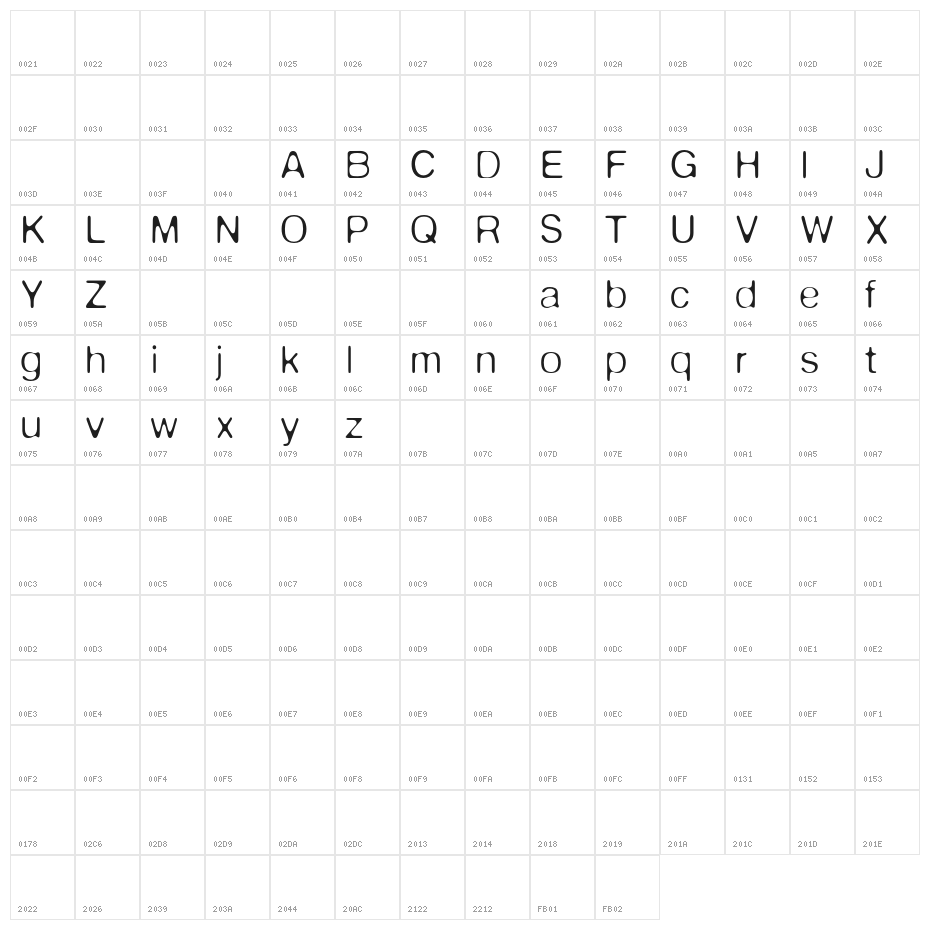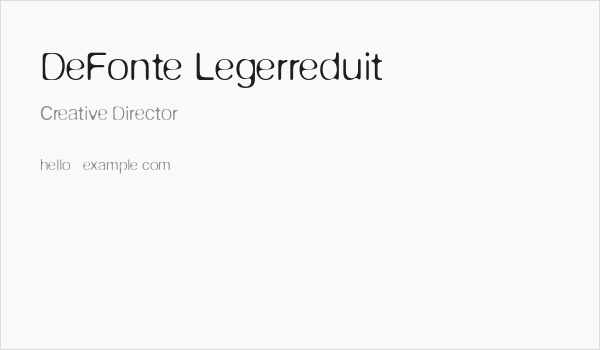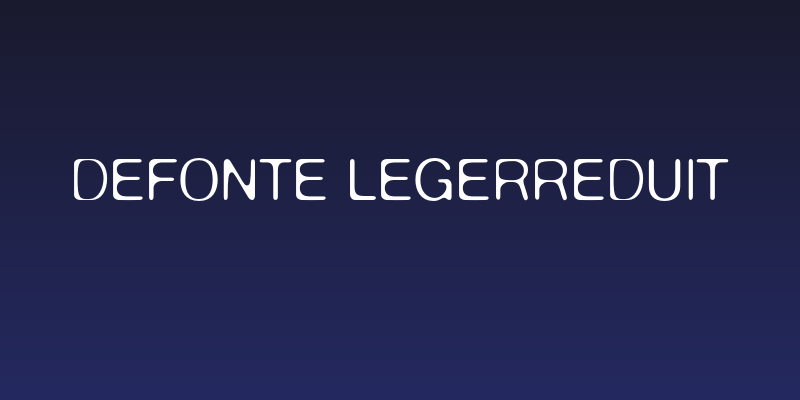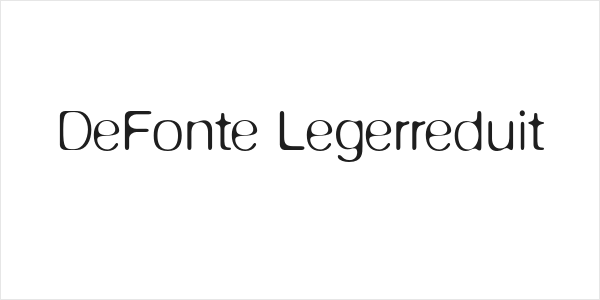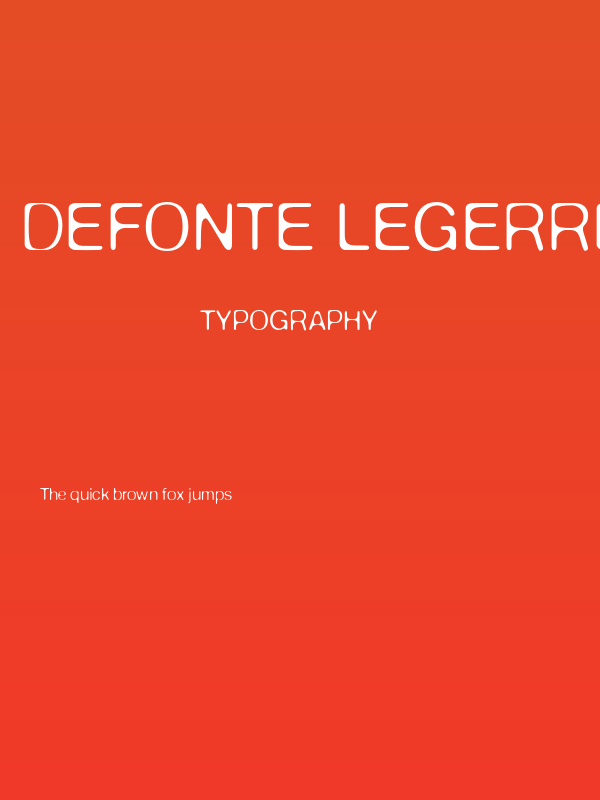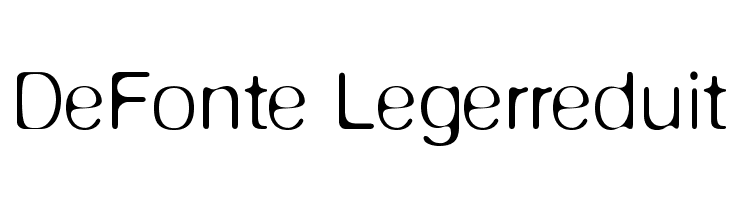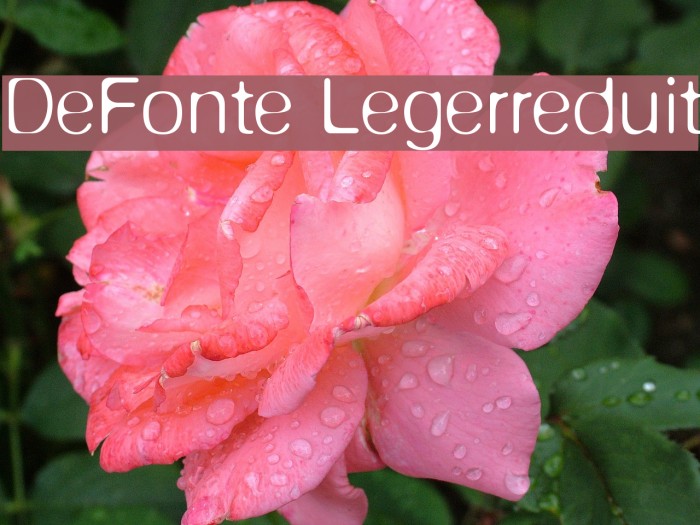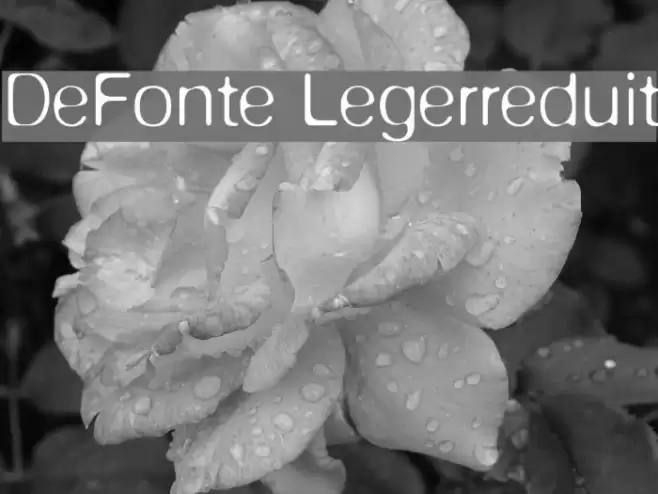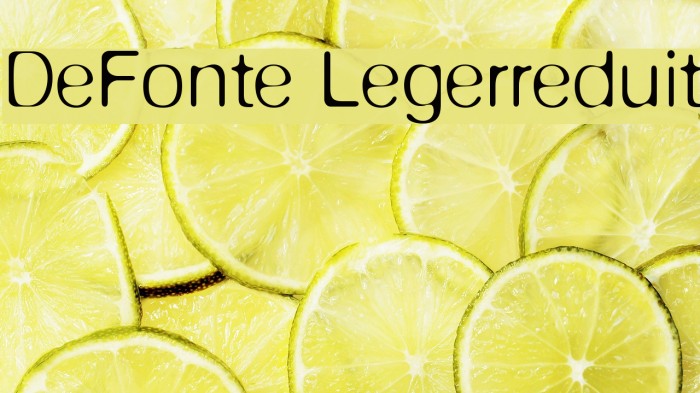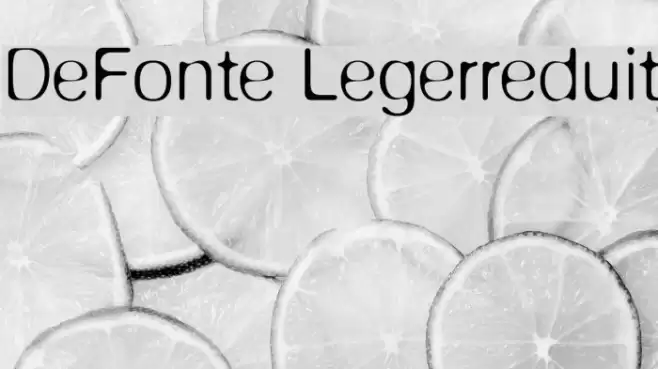
DeFonte-Legerreduit Font
DeFonte-Legerreduit Description
This font features a modern and clean design with rounded edges and smooth curves, giving it a friendly and approachable appearance. The characters are evenly spaced, providing a balanced and harmonious look. The uppercase letters are bold and prominent, while the lowercase letters maintain a consistent style with slightly softer strokes. The numbers and special characters are designed to match the overall aesthetic, ensuring uniformity across all elements. This font is versatile, suitable for both digital and print media, and can be used to convey a sense of modernity and simplicity.
| Use Case | Headlines, Body text, Logos |
| Proposed Projects | Ideal for branding, web design, advertising, and packaging projects. |